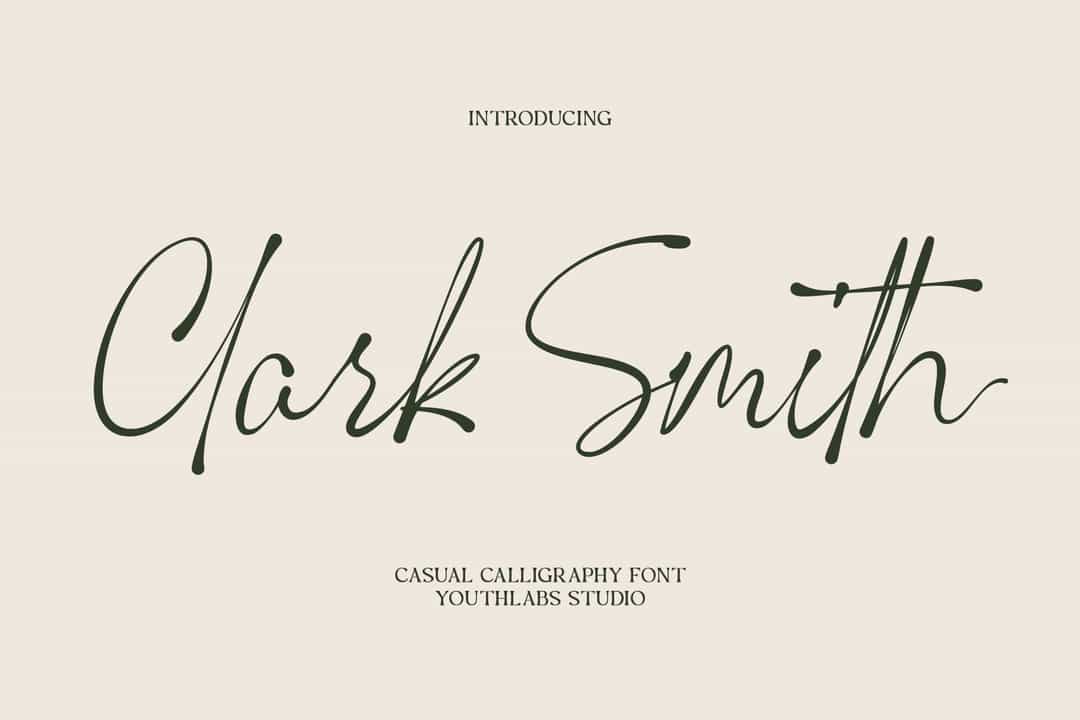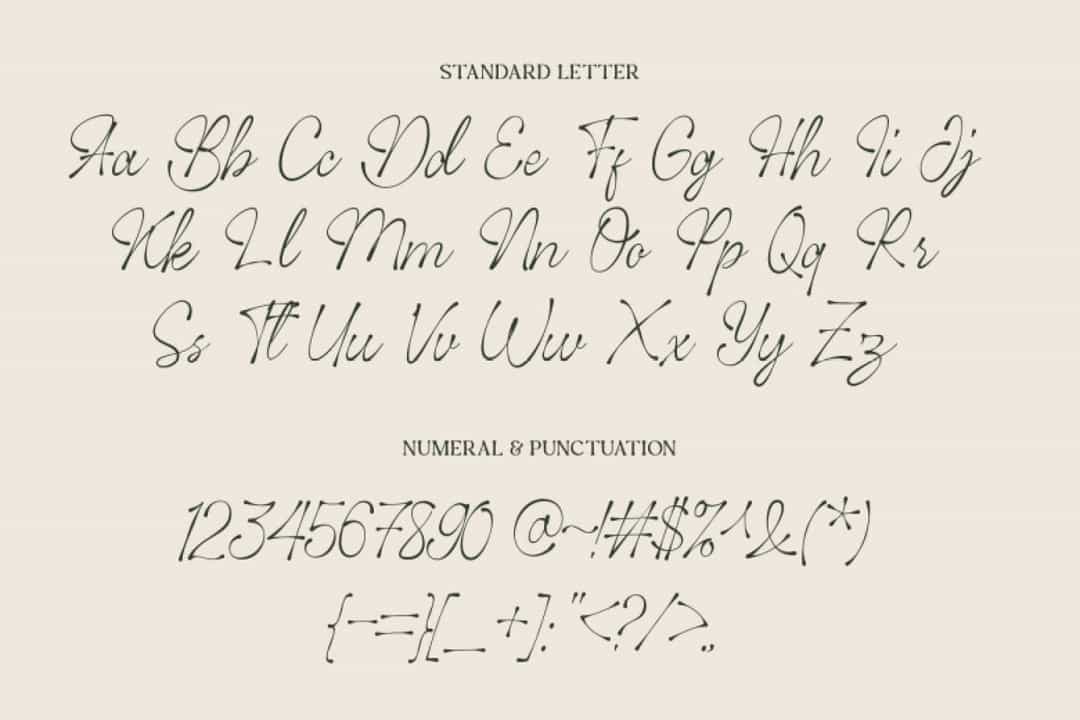
Clark Smithis an elegant hand-written script font. Well-crafted and extremely detailed, this font makes an outstanding addition to your font library for use across various projects and can enhance any design project.